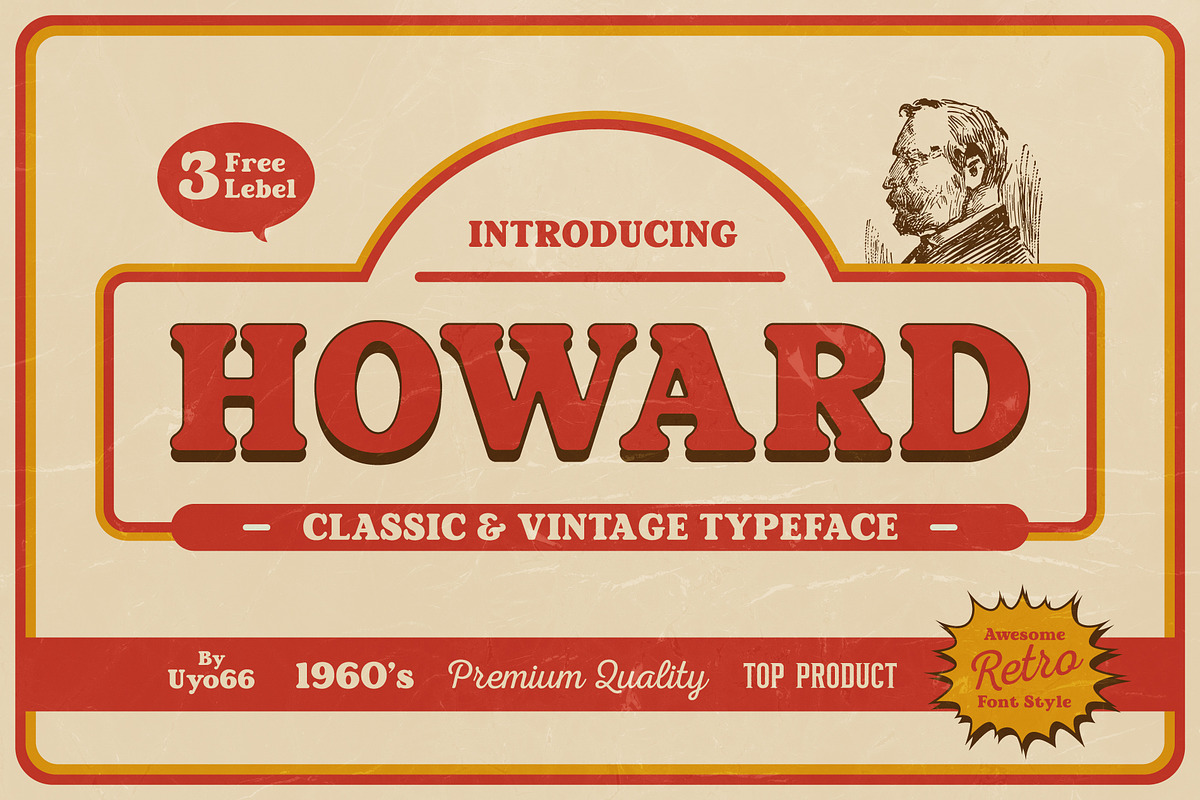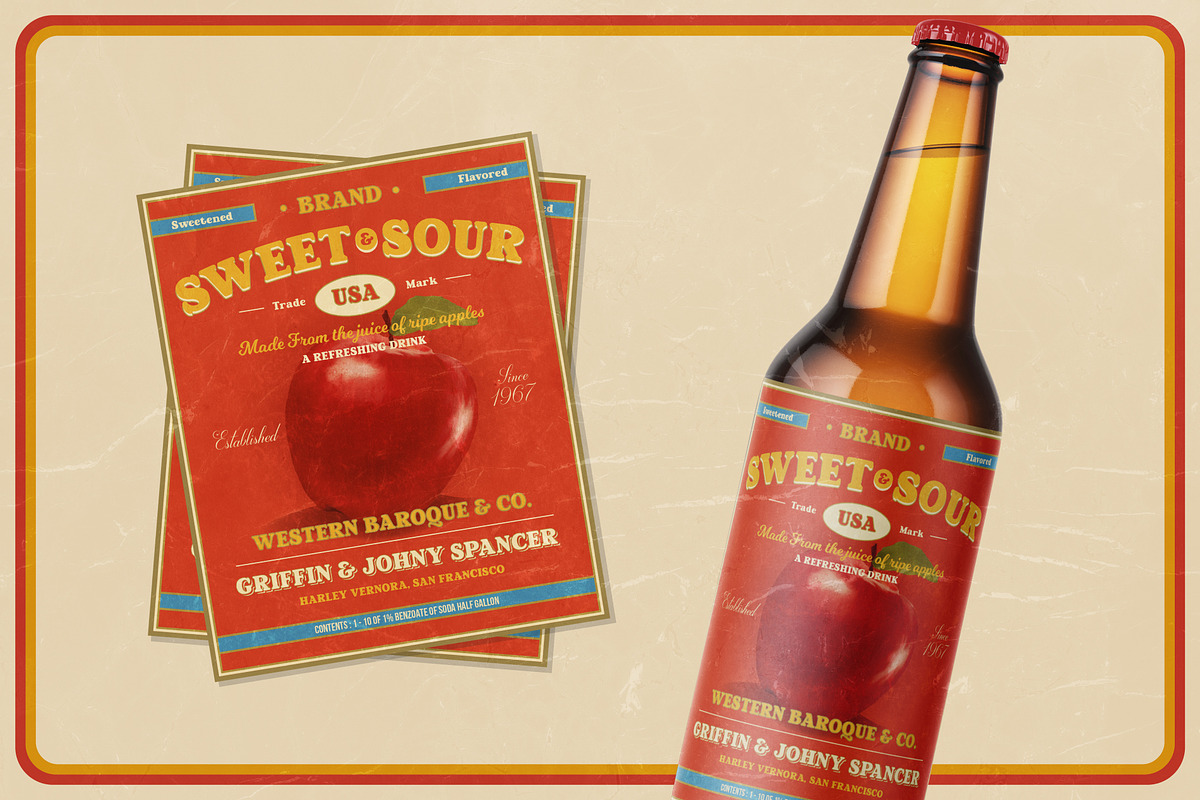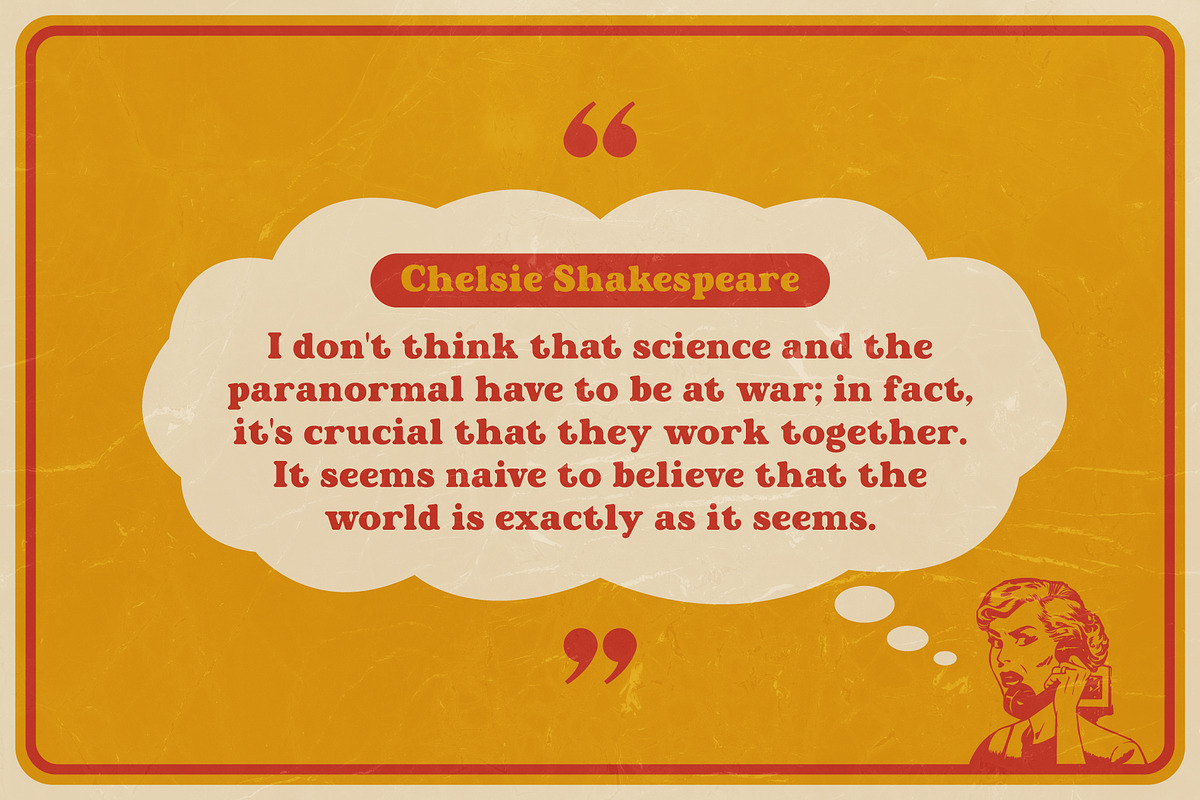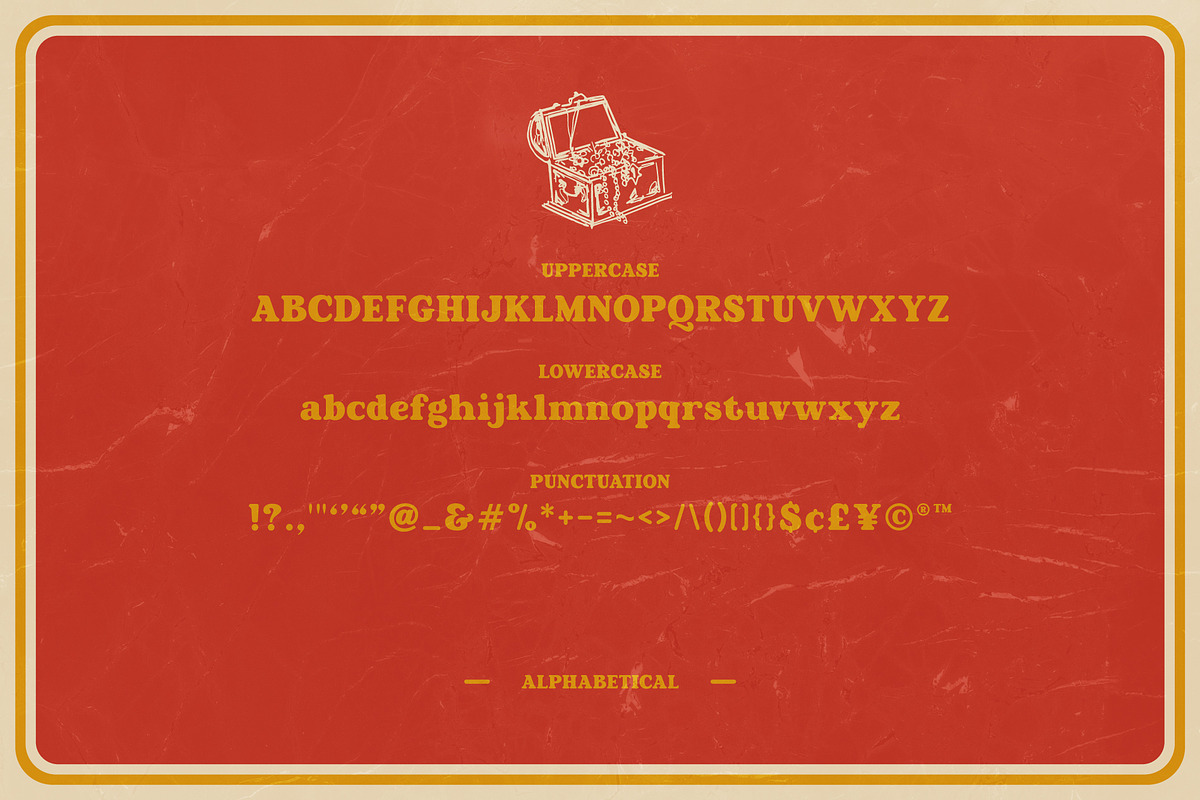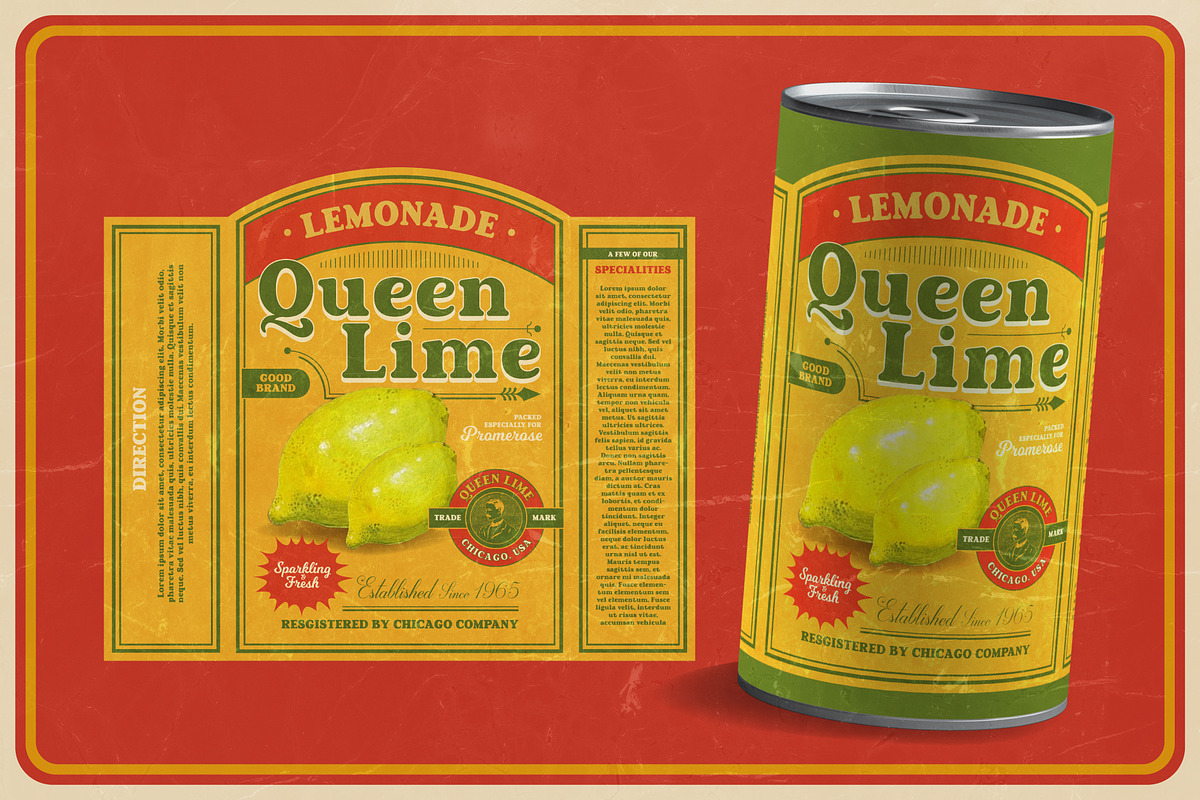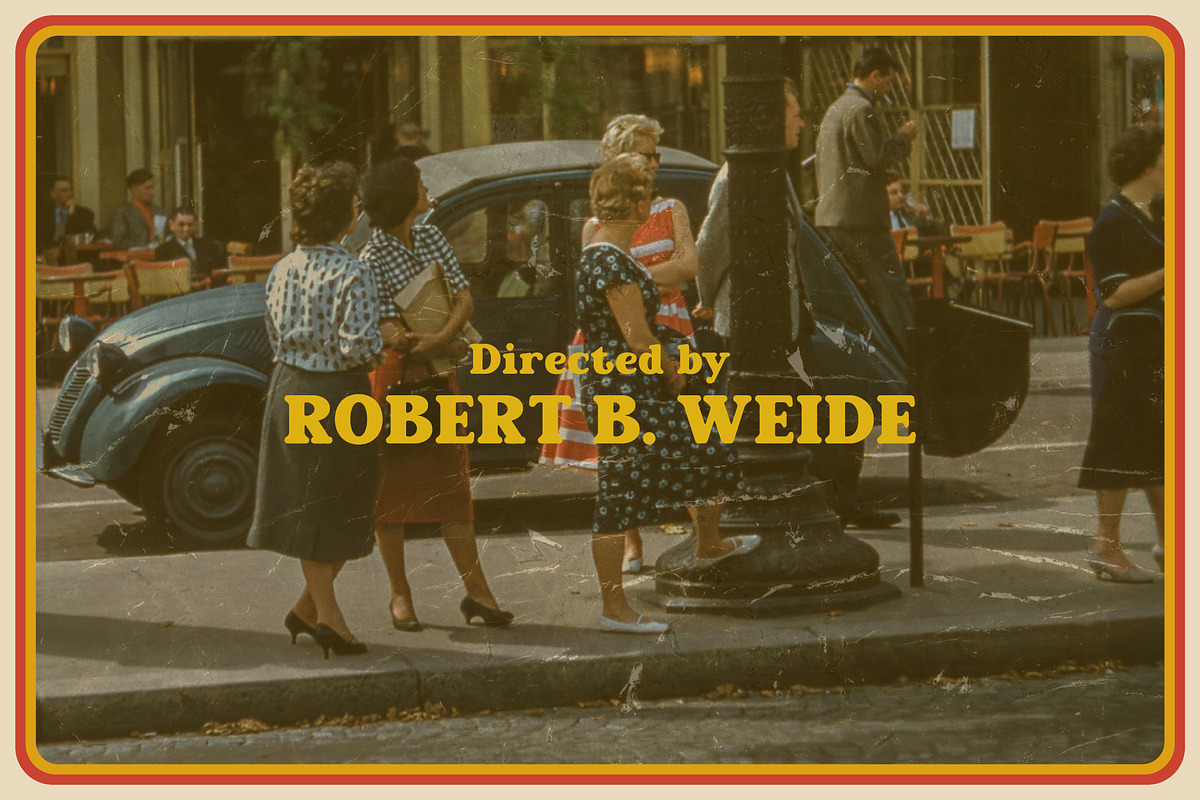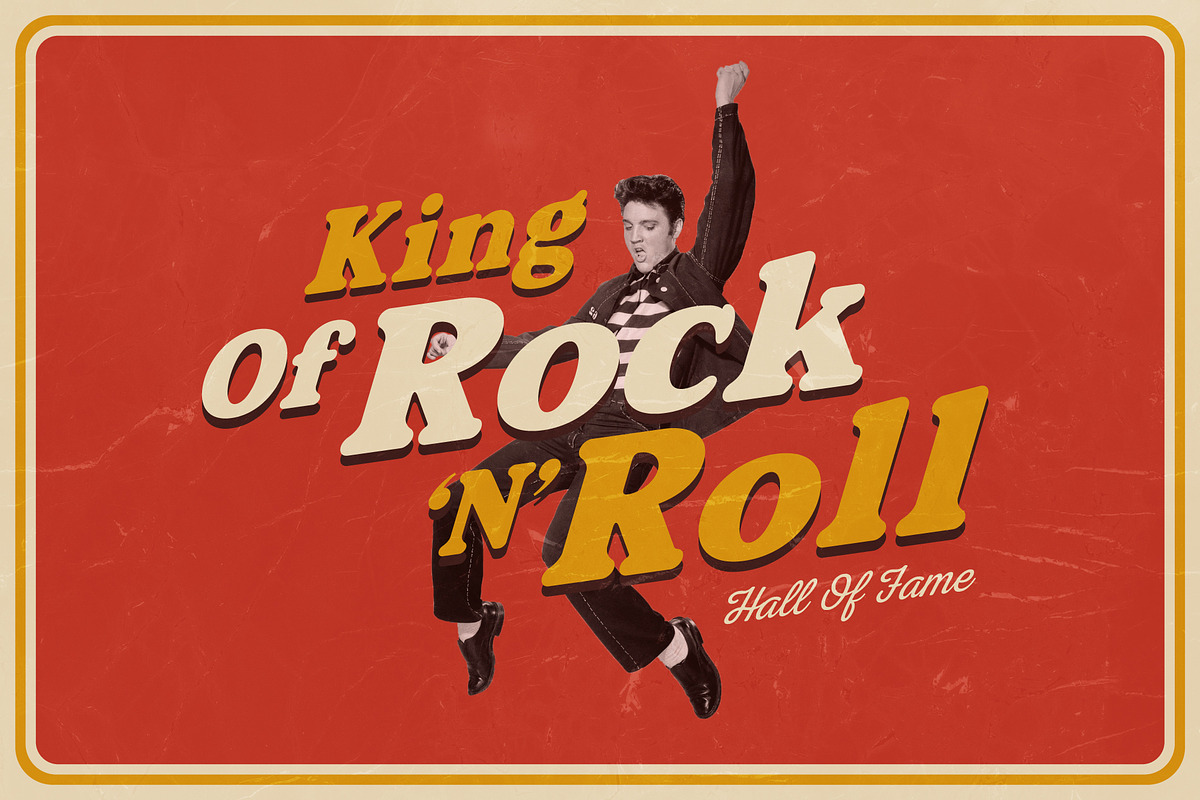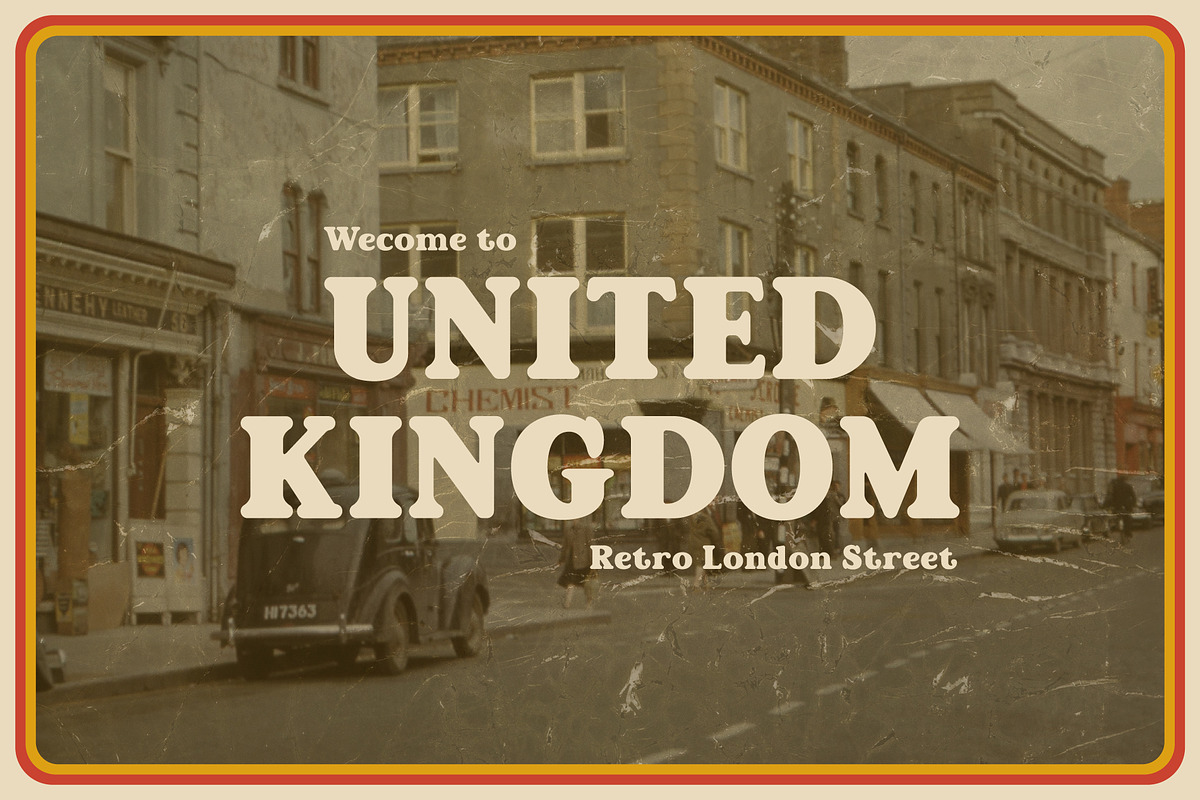
Howard - Retro Vintage Typeface
Introducing a Retro vintage look layered label typeface named "Howard".
Howard Font is perfect for branding projects, logo, wedding designs, social media posts, advertisements, product packaging, product designs, label, photography, watermark, invitation, stationery, Badge, poster, t-shirt, label, logo etc.
- Premium Quality Retro Font